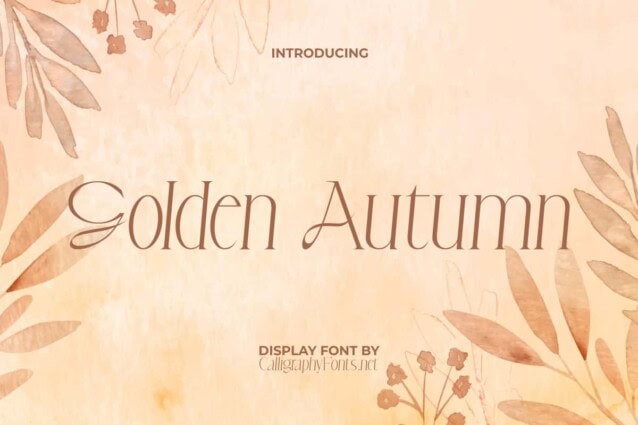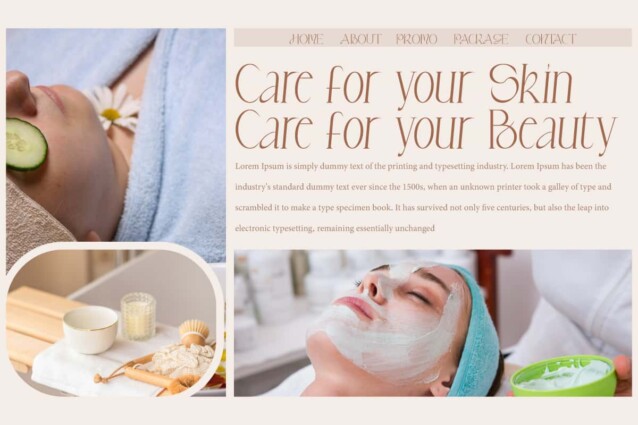
Golden Autumn Font
Golden Autumn Font is a gorgeous serif display font with a minimalist and charming visual elegance. Designed specifically for blogs, brochures, covers, flyer, headers, logo, quotes, screen print, template designs, titles, websites, and much more. This font is so awesome that it will match any type of font, it can be a script with an elegant style.